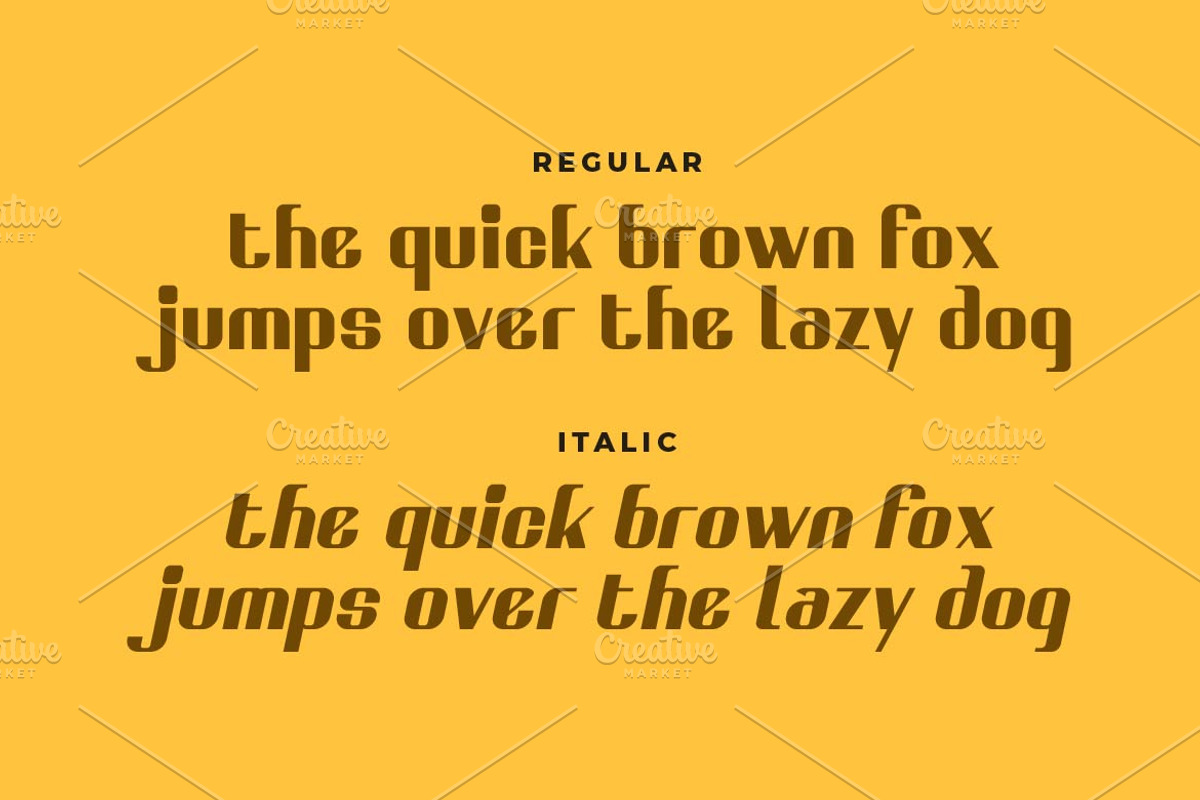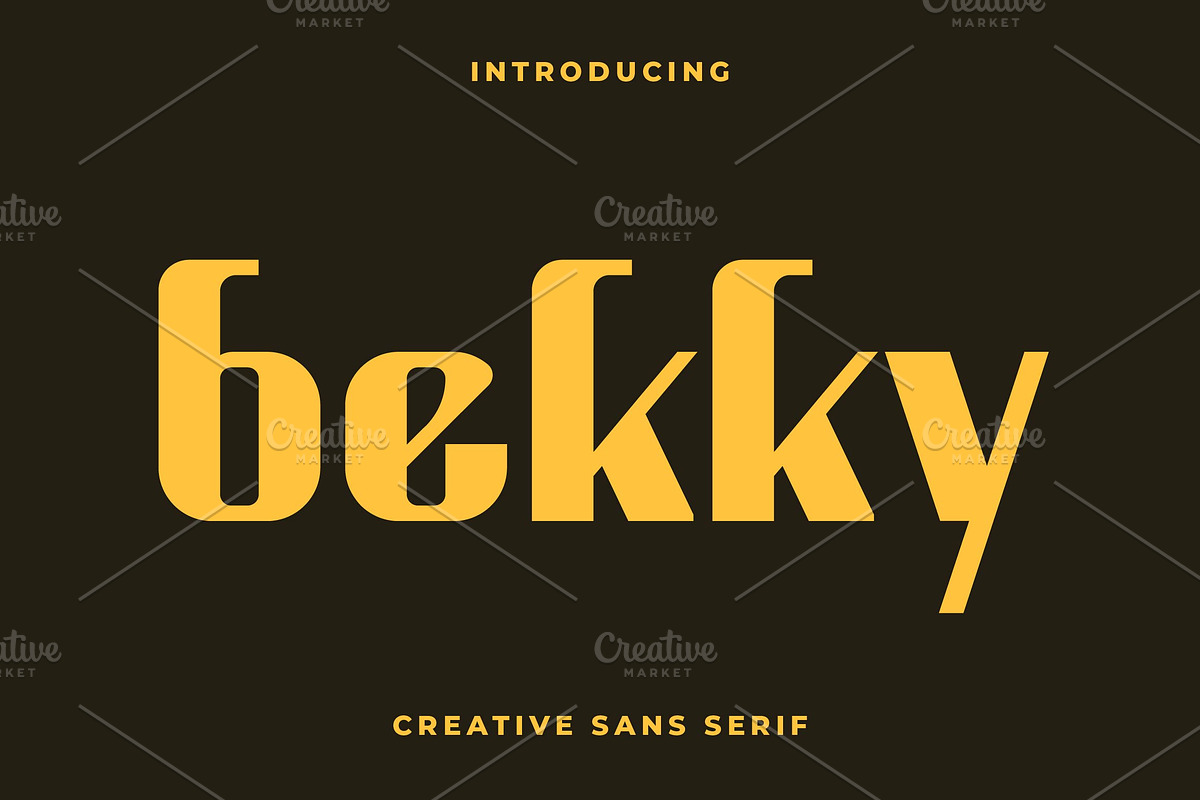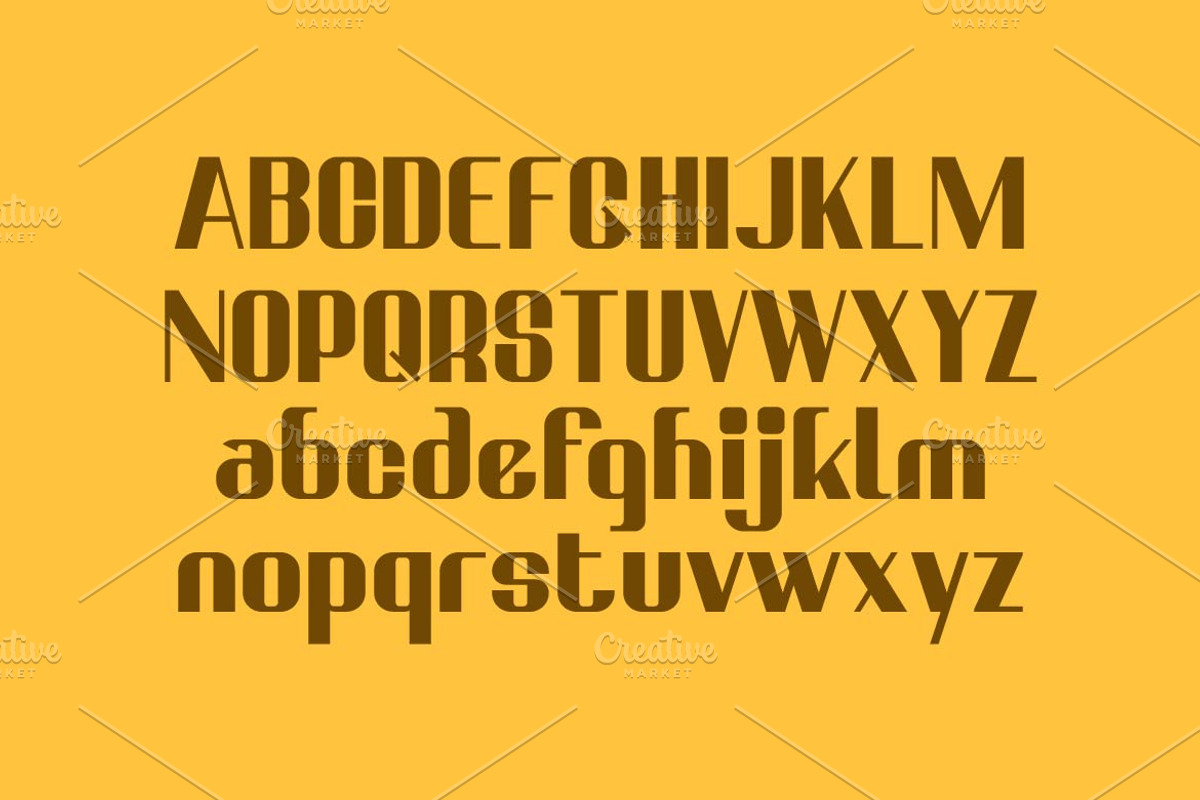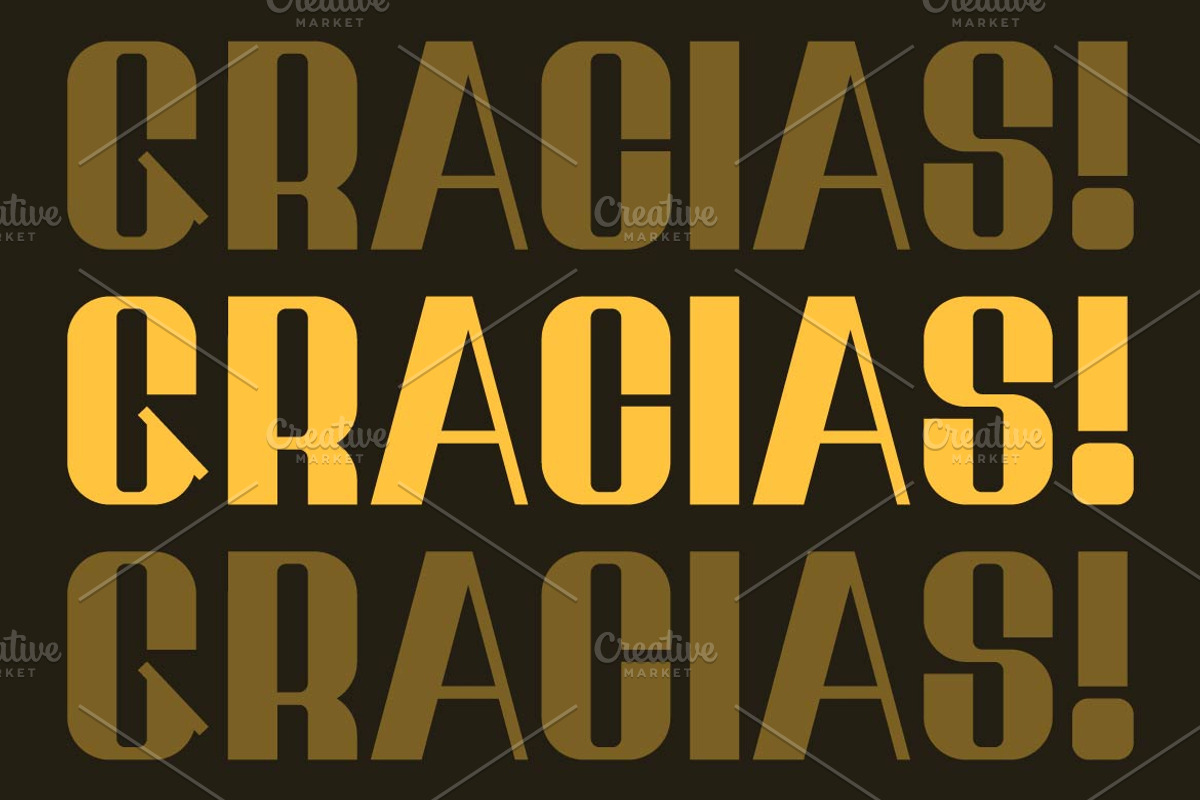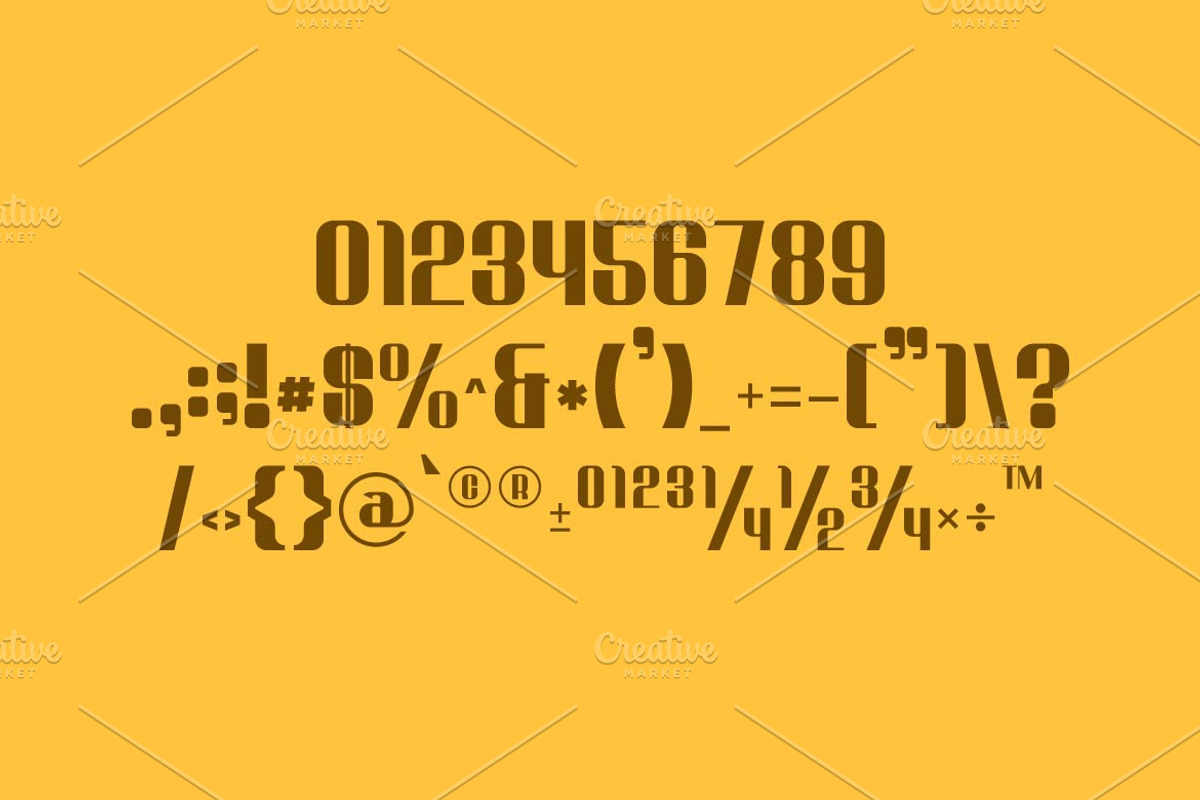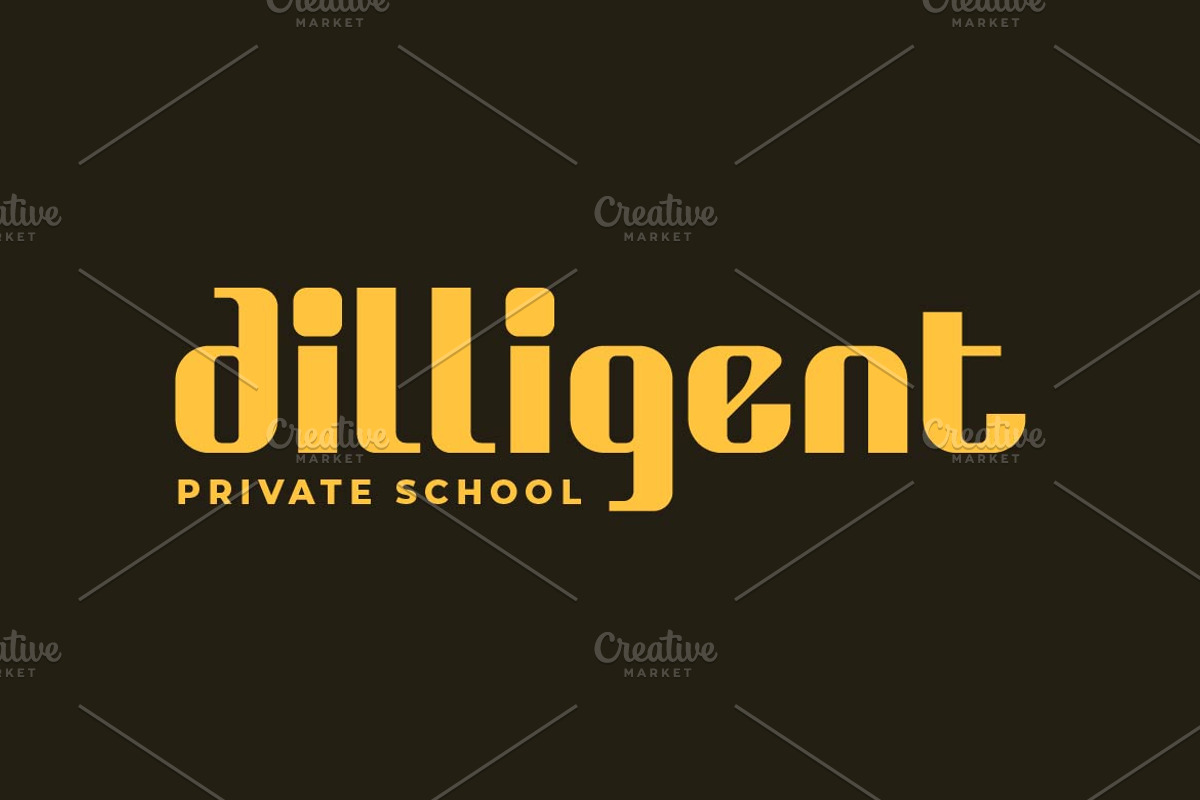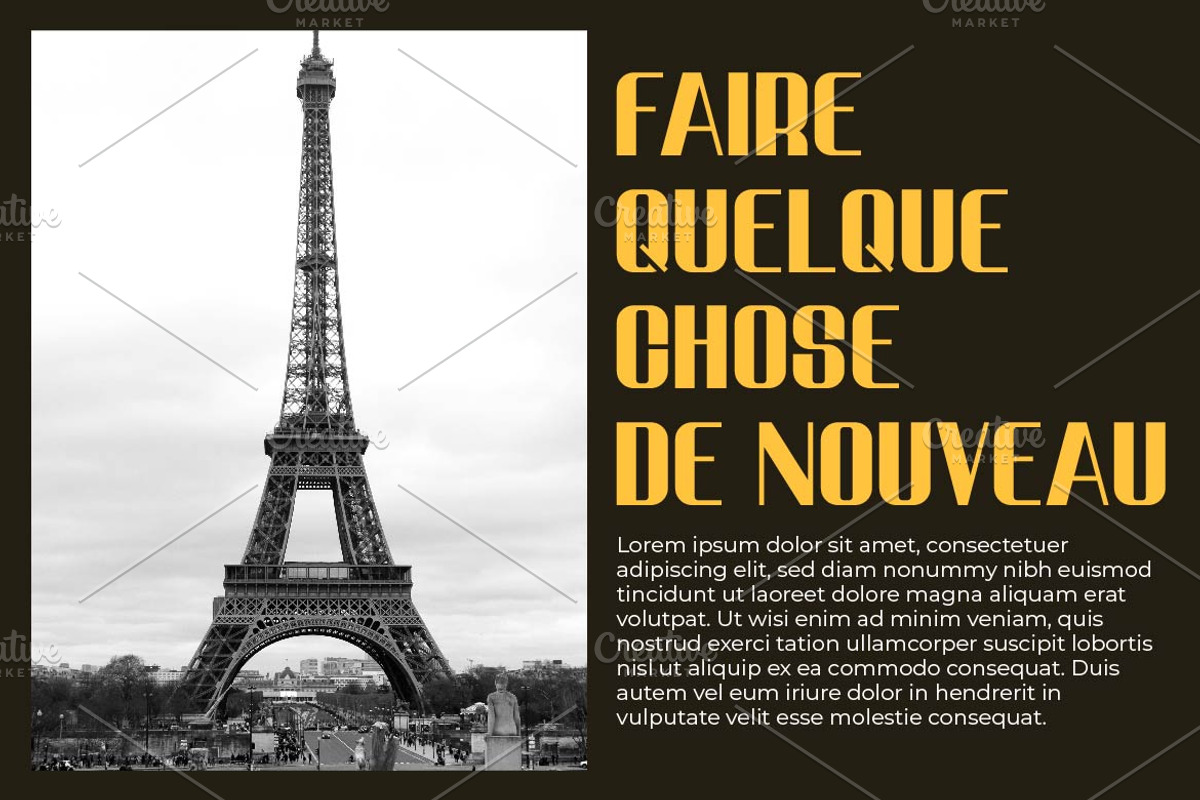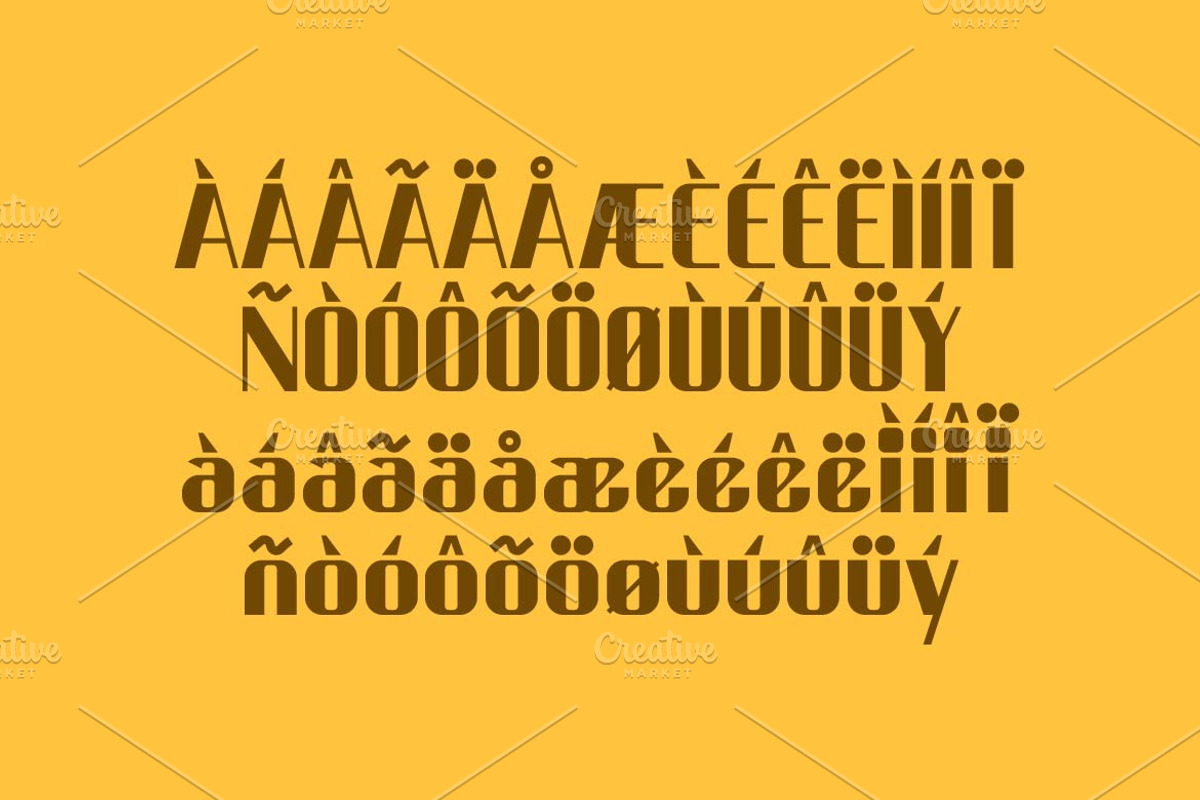
Bekky Creative Sans Font
Bekky is a creative sans serif font by Iwan Alwan, featuring unique letterforms that blend modern minimalism with a playful touch. Perfect for branding, editorial design, packaging, and digital projects, Bekky offers a fresh and stylish aesthetic. With multilingual support, ligatures, and alternates, this versatile typeface brings originality and charm, making it an ideal choice for projects that seek a distinctive yet contemporary look.